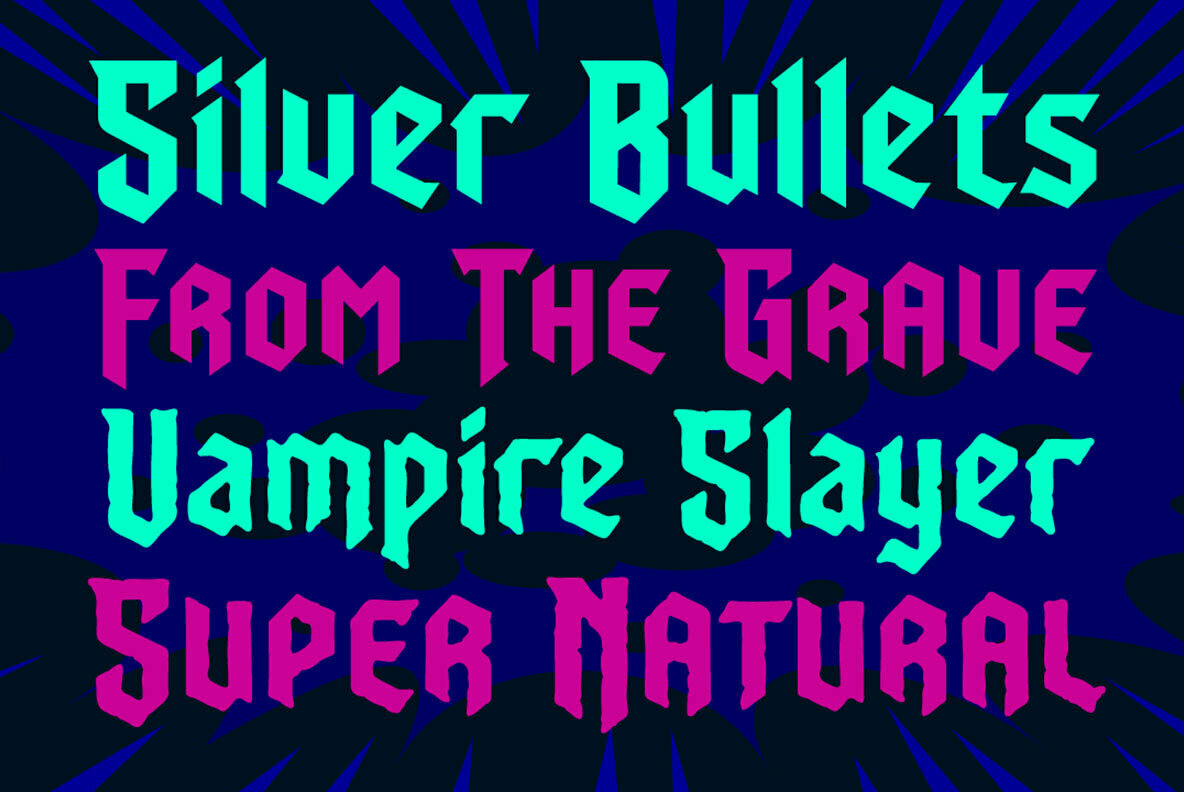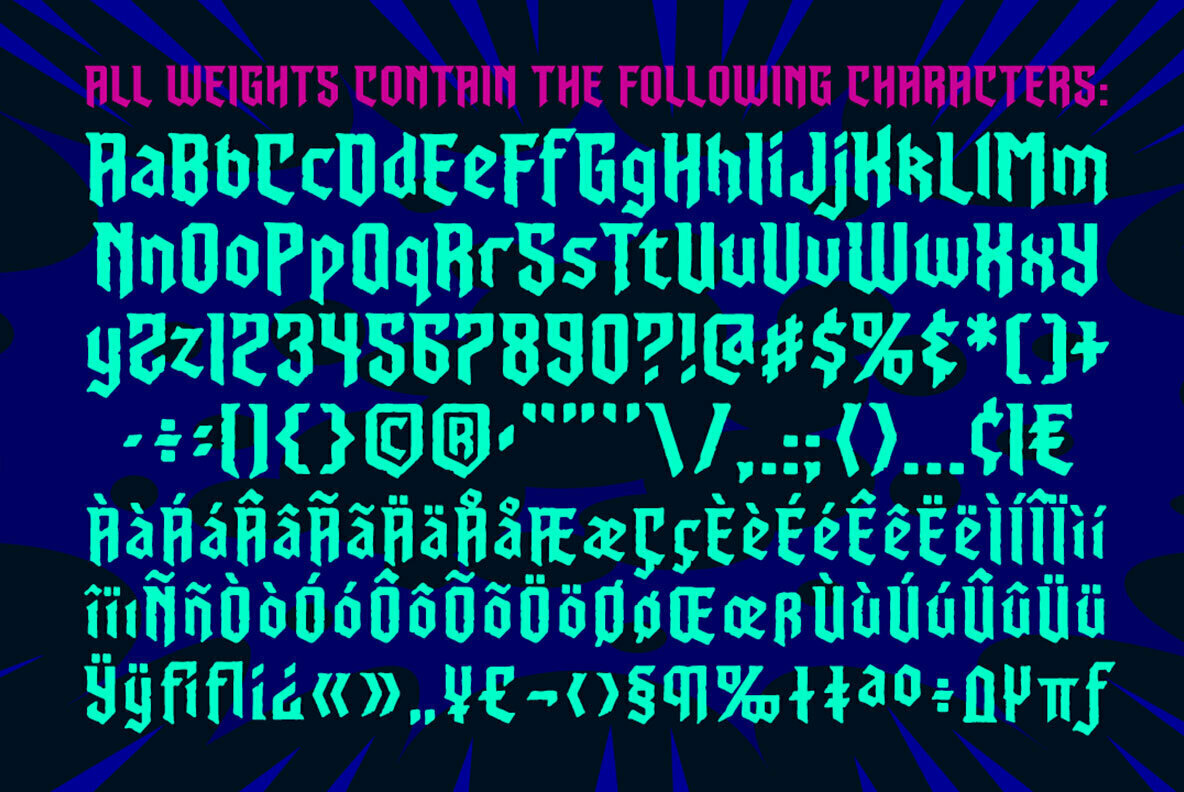
Dusk Till Dawn Font
CC Dusk Till Dawn Buried
CC Dusk Till Dawn Buried Deep
CC Dusk Till Dawn Risen
CC Dusk Till Dawn Risen Up
It is the midnight hour, and the Vampires are rising from their graves... grab your wooden stakes, silver bullets, crossbows, slingshots, garlic cloves and any supernatural weaponry you may have at hand. Still, you will probably not survive the night.
As seen in the logo for the FX television show WHAT WE DO IN THE SHADOWS, Dusk Till Dawn includes four fonts (Risen, RisenUp, Buried & BuriedDeep) with upper and lowercase characters and Western European international characters.